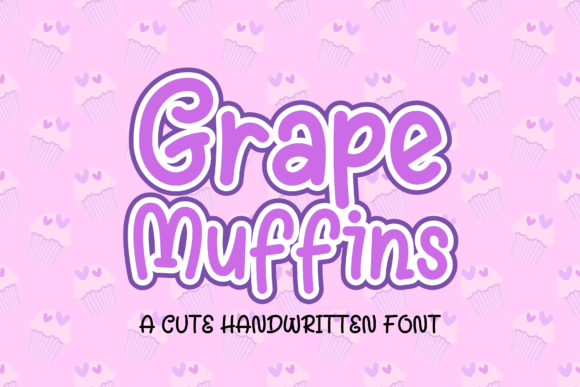
Introducing Grape Muffins Font: The Sweet and Playful Handwritten Font for Your Creative Projects
In the world of digital design, fonts play a crucial role in conveying the tone and personality of a project. If you’re looking for a font that can add a personal, heartwarming vibe to your creations, look no further than Grape Muffins Font. This sweet and playful handwritten font is perfect for a wide range of applications, from social media posts and digital planning to branding, invitations, and decorative crafts.
What Makes Grape Muffins Font Special?
Grape Muffins Font is a unique and charming font that stands out from the crowd. Its sweet and playful handwritten style brings a touch of warmth and authenticity to any project. Whether you’re creating a social media post, a digital plan, or a brand identity, this font is sure to make your design feel more personal and engaging.
One of the key features that sets Grape Muffins Font apart is its versatility. This font includes uppercase and lowercase letters, numbers, basic punctuation, and supports international characters, making it a great choice for both casual and creative designs.
Perfect for a Wide Range of Applications
Grape Muffins Font is a versatile font that can be used in a variety of contexts. Here are some of the ways you can use this font to add a touch of charm and authenticity to your projects:
- Social Media Posts: Use Grape Muffins Font to create eye-catching social media posts that stand out from the crowd. Whether you’re posting on Instagram, Facebook, or Twitter, this font is sure to make your content feel more personal and engaging.
- Goodnotes and Digital Planning: Add a touch of warmth and personality to your digital plans and Goodnotes with Grape Muffins Font. This font is perfect for creating custom layouts and designs that reflect your unique style.
- Branding: Use Grape Muffins Font to create a brand identity that feels personal and authentic. Whether you’re designing a logo, business card, or website, this font is sure to help you establish a strong and memorable brand.
- Invitations: Create beautiful and charming invitations with Grape Muffins Font. Whether you’re planning a wedding, birthday party, or baby shower, this font is sure to add a touch of warmth and personality to your invitations.
- Decorative Crafts: Use Grape Muffins Font to add a personal touch to your decorative crafts. Whether you’re creating custom signs, banners, or wall art, this font is sure to make your projects feel more special and unique.
Key Features of Grape Muffins Font
Here are some of the key features that make Grape Muffins Font a great choice for your creative projects:
- Uppercase and Lowercase Letters: Grape Muffins Font includes both uppercase and lowercase letters, making it easy to create professional-looking designs.
- Numbers and Basic Punctuation: This font includes numbers and basic punctuation, making it a versatile choice for a wide range of applications.
- International Character Support: Grape Muffins Font supports international characters, making it a great choice for designers who work with clients from around the world.
- Handwritten Style: The handwritten style of Grape Muffins Font adds a touch of warmth and personality to any project.
Why Choose Grape Muffins Font?
If you’re looking for a font that can add a personal, heartwarming vibe to your projects, Grape Muffins Font is a great choice. Here are some reasons why you should consider using this font:
- Unique and Charming: Grape Muffins Font is a unique and charming font that stands out from the crowd.
- Versatile: This font is versatile and can be used in a wide range of applications, from social media posts to branding and digital planning.
- Easy to Read: Grape Muffins Font is easy to read, making it a great choice for designs that require a lot of text.
- Supports International Characters: This font supports international characters, making it a great choice for designers who work with clients from around the world.
Tips for Using Grape Muffins Font
Here are some tips for using Grape Muffins Font in your creative projects:
- Use it for Headings: Grape Muffins Font is perfect for headings and titles. Use it to add a touch of personality to your designs.
- Mix it with Other Fonts: Don’t be afraid to mix Grape Muffins Font with other fonts. This font pairs well with sans-serif fonts and can be used to create a unique and interesting design.
- Use it for Body Text: Grape Muffins Font is easy to read, making it a great choice for body text. Use it to create designs that require a lot of text.
- Experiment with Colors: Grape Muffins Font looks great in a variety of colors. Experiment with different colors to find the one that works best for your design.
Grape Muffins Font is a sweet and playful handwritten font that brings a personal, heartwarming vibe to any project. With its unique and charming style, versatility, and ease of use, this font is perfect for a wide range of applications, from social media posts and digital planning to branding, invitations, and decorative crafts. Whether you’re a designer, crafty DIY enthusiast, or simply someone who loves to create, Grape Muffins Font is a great choice for adding a touch of personality to your designs.